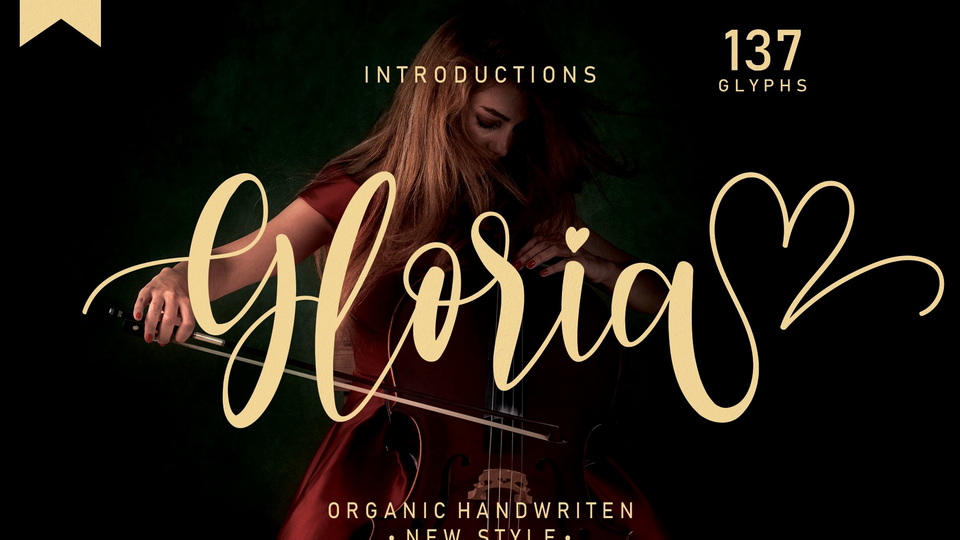
Download Gloria font, a romantic and sweet calligraphy typeface with a flowing characters. Gloria font is perfect for wall displays, wedding invitations, social media post logos, advertisements, product packaging.